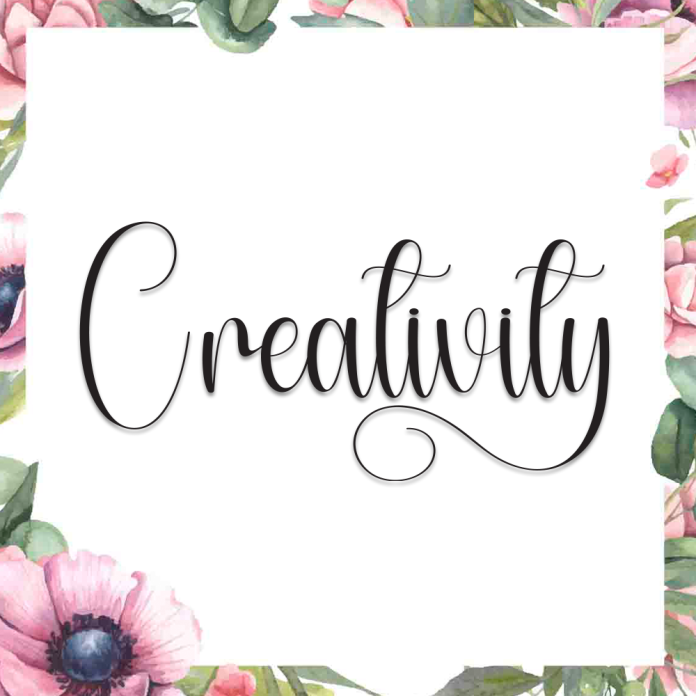
Creativity is a stylish and uplifting handwriting font that radiates artistic flair and expressive charm. With fluid strokes and a graceful rhythm, it’s designed to spark imagination and add a handcrafted touch to your creative work.
Perfect for inspirational quotes, branding, planner designs, stationery, blogs, and digital art, Creativity brings elegance, warmth, and personality to every letter.
Artistic and elegant handwritten style
Smooth, flowing lines with a natural feel
Ideal for quotes, branding, art, and personal projects
Let your ideas flow with Creativity — a handwriting font that turns imagination into beautiful design.